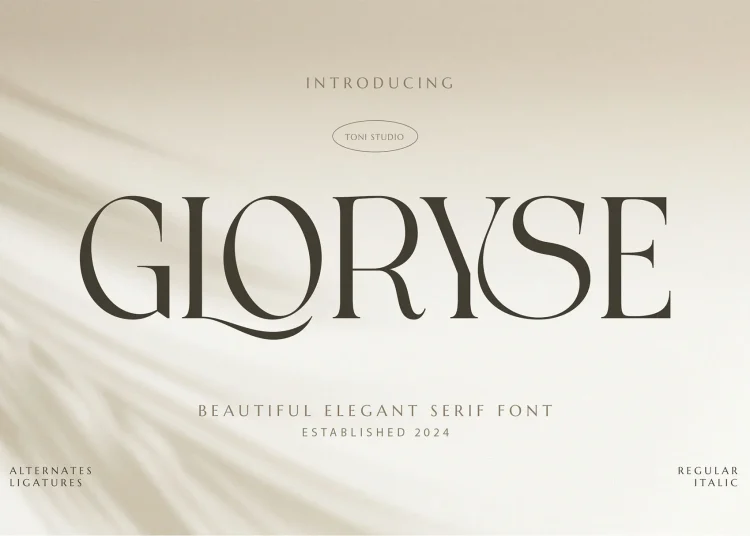
Gloryse Font
Gloryse is a sophisticated font that effortlessly combines modernity with elegance, making it an ideal choice for a wide range of design projects. Whether you’re working on luxury branding, high-end editorial layouts, or stylish promotional materials, Gloryse offers the perfect typographic harmony.
Key Features of Gloryse:
• Elegance and Class: With its refined design, Gloryse brings a sense of elegance and class to any project, making it particularly suitable for luxury and high-end designs.
• Versatile Applications: This font is perfect for a variety of uses, including luxury logos, editorial designs, fashion and cosmetic branding, modern advertising, and more.
• Beautiful Typographic Harmony: The well-balanced design of Gloryse ensures that it adds a touch of sophistication to any text, enhancing the overall aesthetics of your project.
Ideal Uses for Gloryse:
• Luxury Branding: Create elegant logos and branding materials for fashion brands, cosmetic lines, and other high-end products.
• Classy Editorial Designs: Perfect for women’s magazines, classy editorials, and sophisticated book covers.
• Modern Advertising: Use Gloryse for chic and modern advertising campaigns, fashion promotions, and stylish invitations.
• Art and Home Deco: Add a touch of elegance to art quotes, home decor, and special event materials.